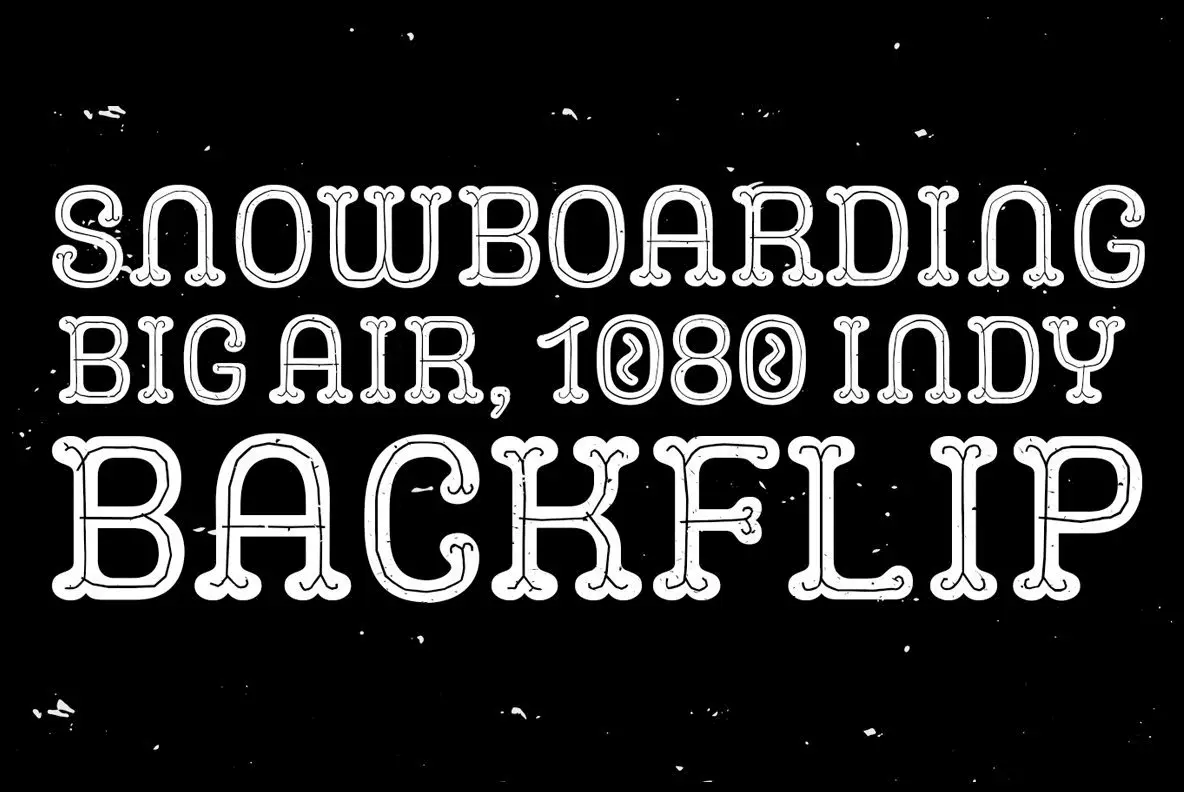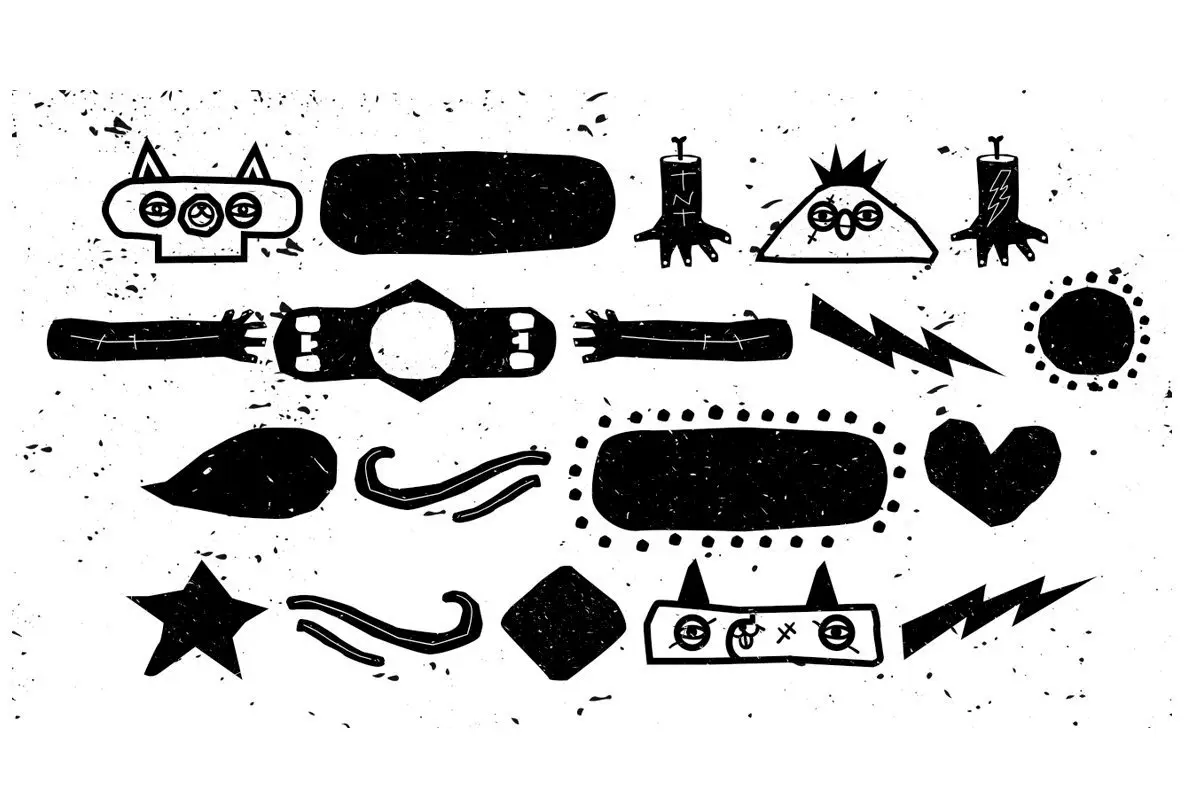
Designed by rodrigo araya salas and andrey kudryavtsev, camo dirt is a dingbat and hand display font family. Click to visit and download. Trusted by millions + easy to use font files + full support.
Camo Dirt Font - Download camo dirt (30083) instantly now! This typeface has two styles and was published by rodrigo typo. Camo dirt is a variant of camo. Designed by rodrigo araya salas and andrey kudryavtsev, camo dirt is a dingbat and hand display font family. Click here and download the camo dirt font · window, mac, linux · last updated 2025 · commercial.
Camo Dirt Font - Camo dirt is a variant of camo. To install a font, just double click on the otf or ttf file. Download the font camo dirt and start using it in your projects today. A version with more rough and dirt, with a set of dingbats. Designed by rodrigo araya salas and andrey kudryavtsev, camo dirt is a dingbat and hand.
Camo Dirt Font - Download the font camo dirt and start using it in your projects today. Camo dirt is a variant of camo. A version with more rough and dirt, with a set of dingbats. Designed by rodrigo araya salas and andrey kudryavtsev, camo dirt is a dingbat and hand display font family. Click to visit and download.